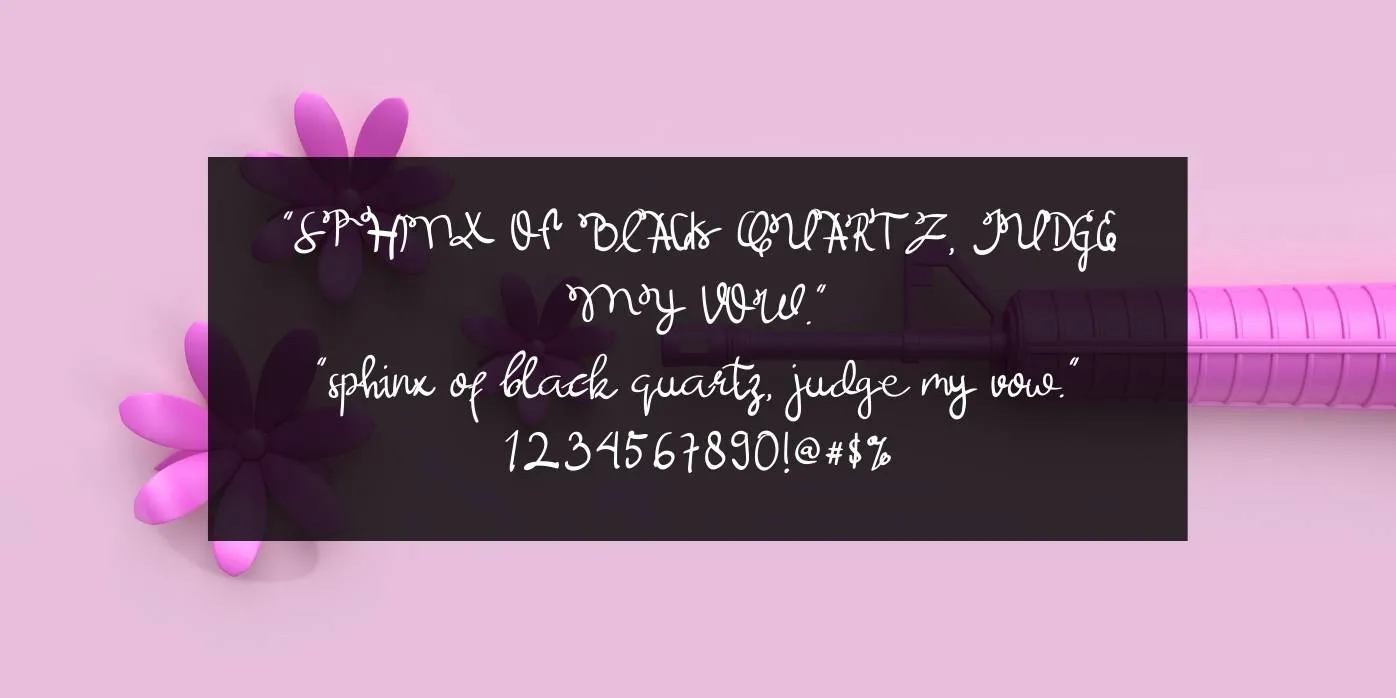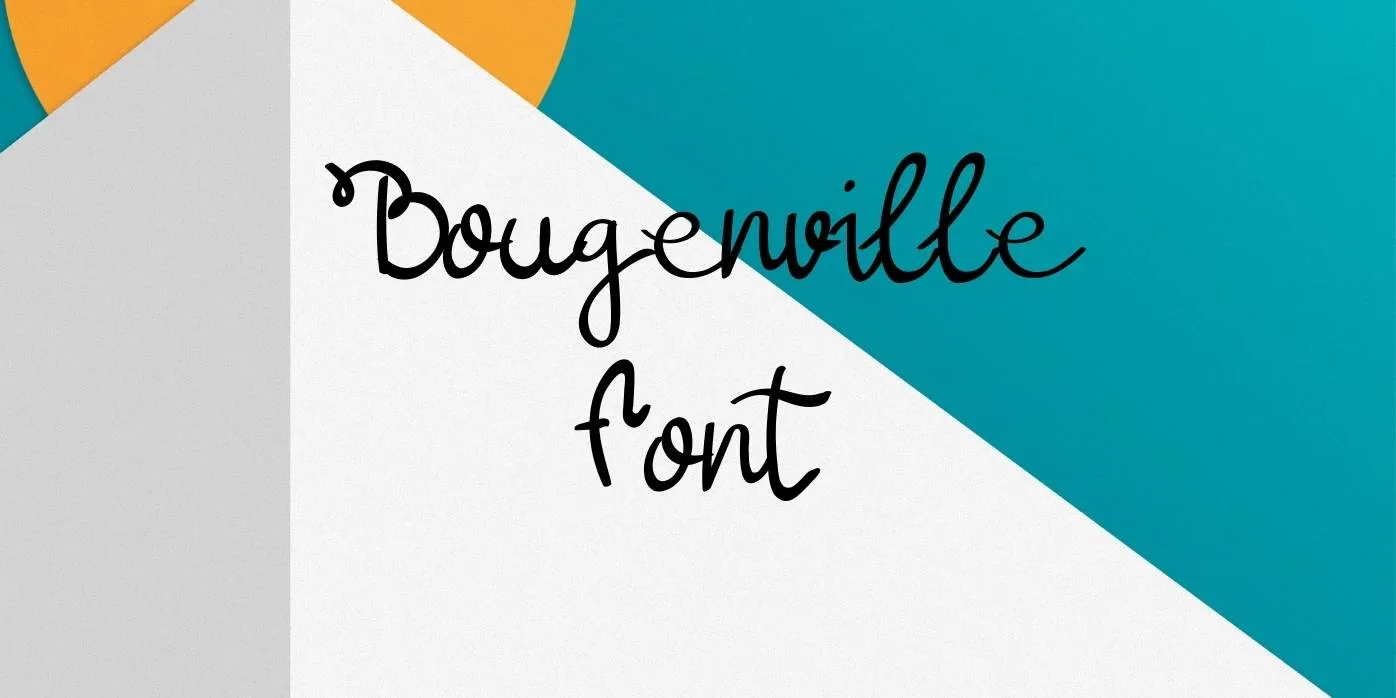
Bougenville Font
Bougenville Font is a famous handwritten typeface. This awesome typeface was designed by Liarttype.  This typeface has near and clean textures. The Bougenville Typeface family comes in regular, italic, and light weights. It has neat and clean textures.
This marvelous font has a very unique and stylish look that will make your designs stand out from the rest. This font is perfect for those who are looking for a handwritten typeface with a clean and modern twist. You can also use it for Canva. The Bougenville Typeface has a very classic handwritten look.
This font is perfect for making headlines and titles. This typeface is available in both regular and bold weights. If you are looking for a handwritten font with a stylish look, then the Bougenville Font is perfect for all of your projects. This typeface will provide the best and flawless results.